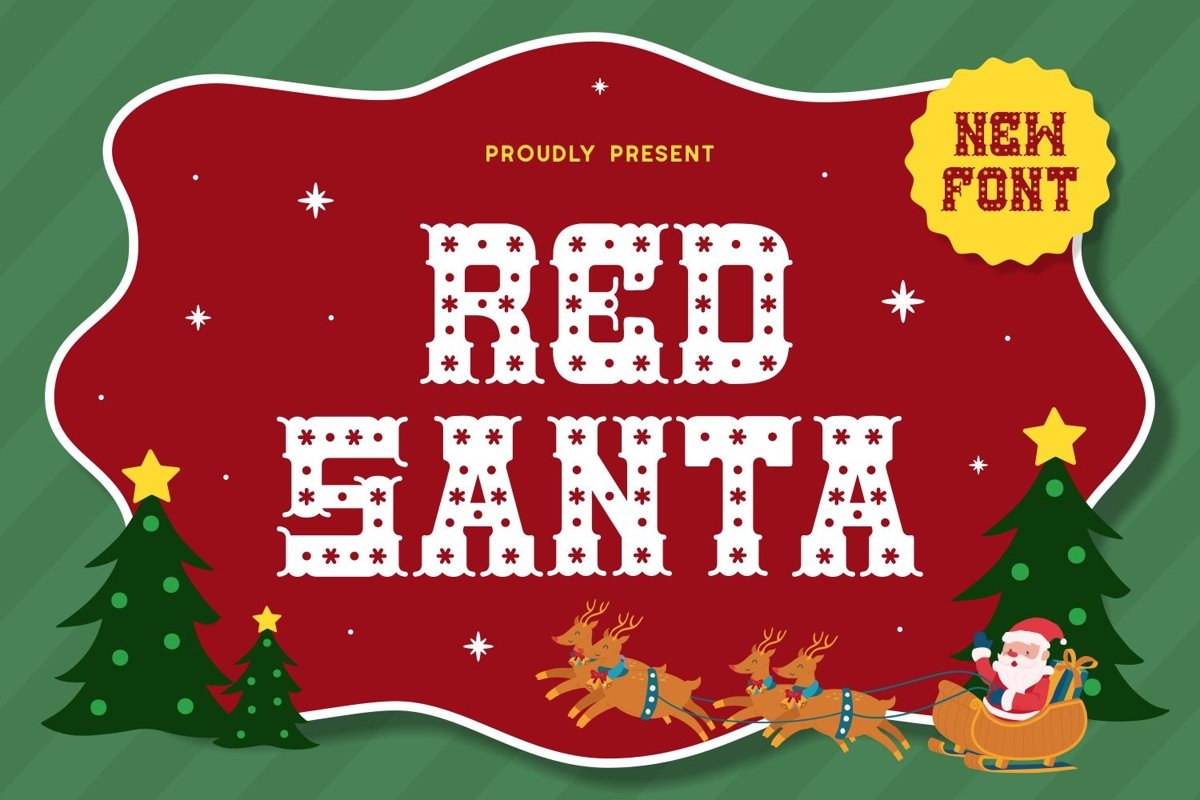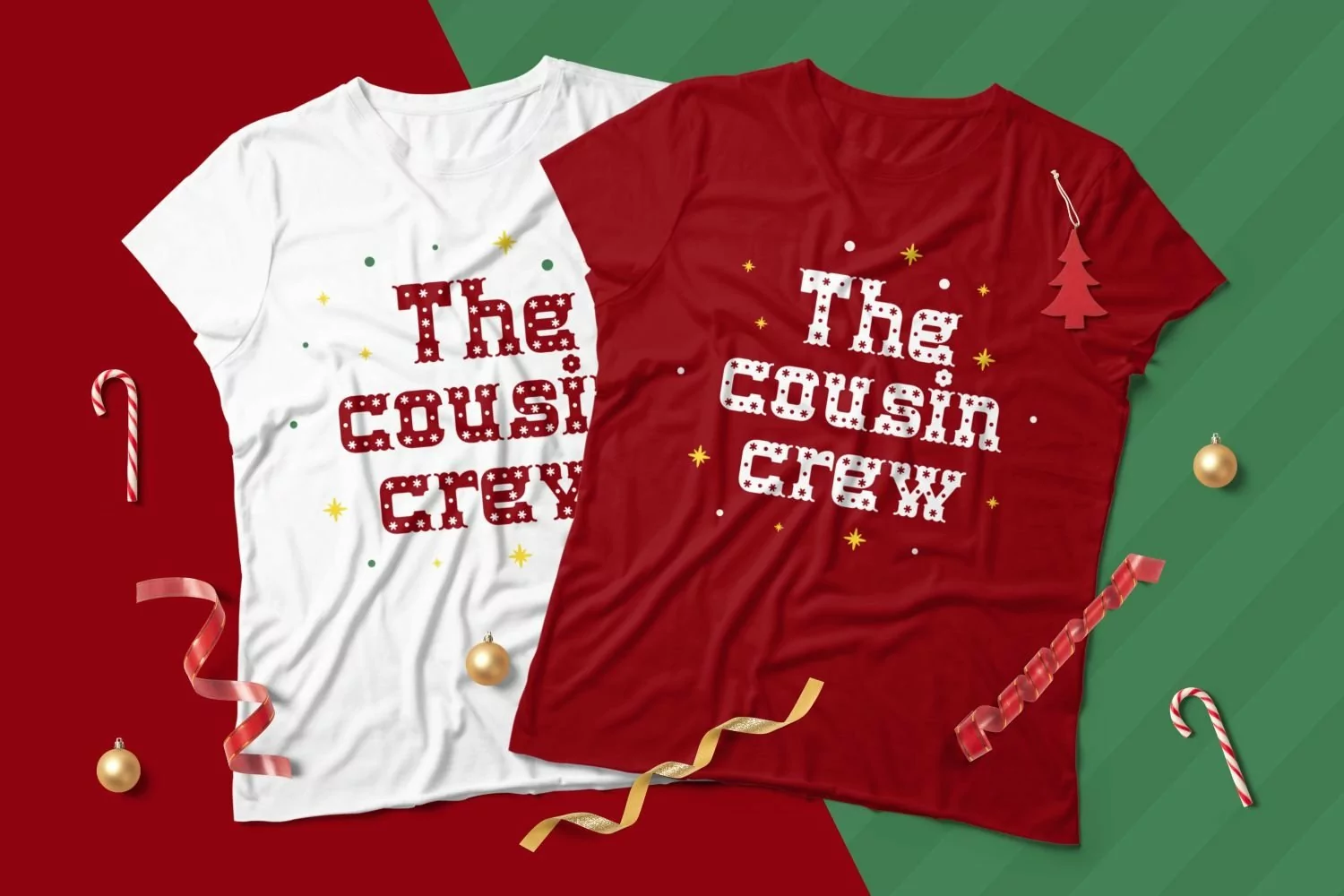
Redsanta is a serif display come with crafted themes. We wanted to create the most decorative characters. The shape of characters have cute pattern. It matches applies in some designs such as the logotype, brand, packaging, quotes, cute poster, kids shirt, cover book, birthday invitation and more custom design. The features uppercase, lowercase, numeral, punctuation & symbol, multilingual support, PUA encoded (fully accessible without additional design software).